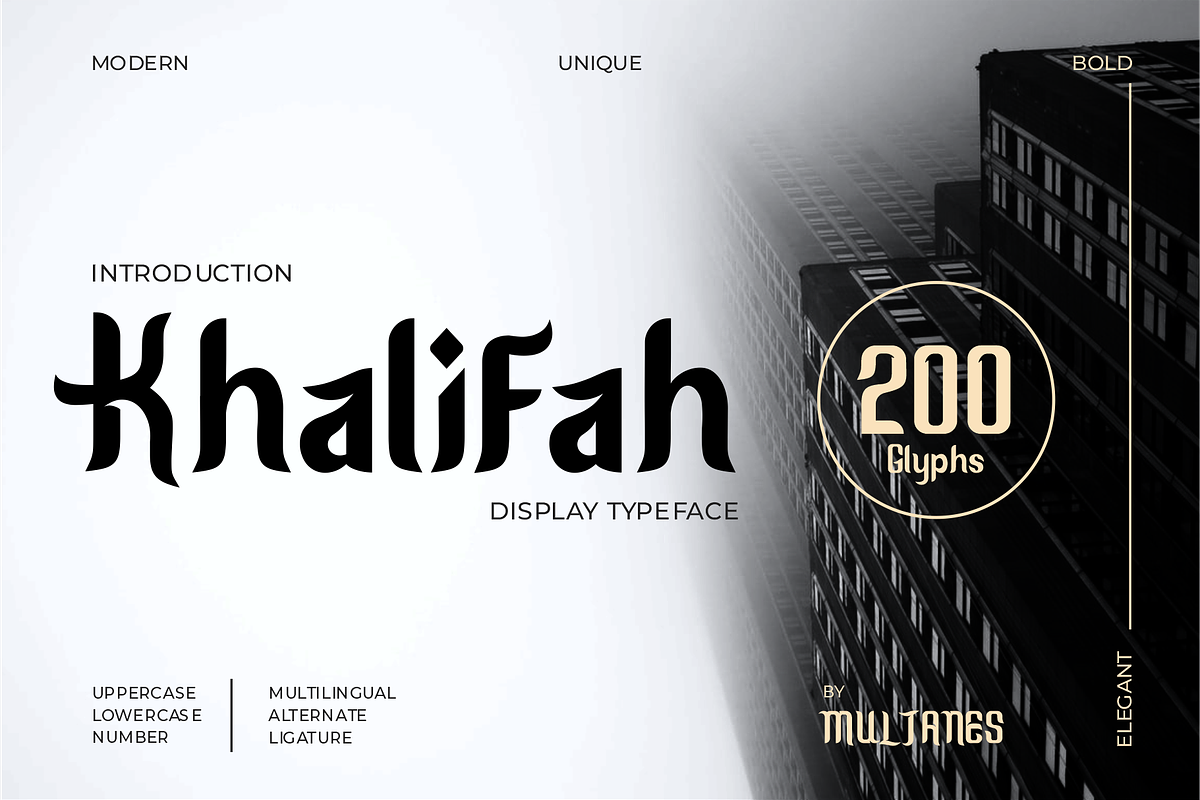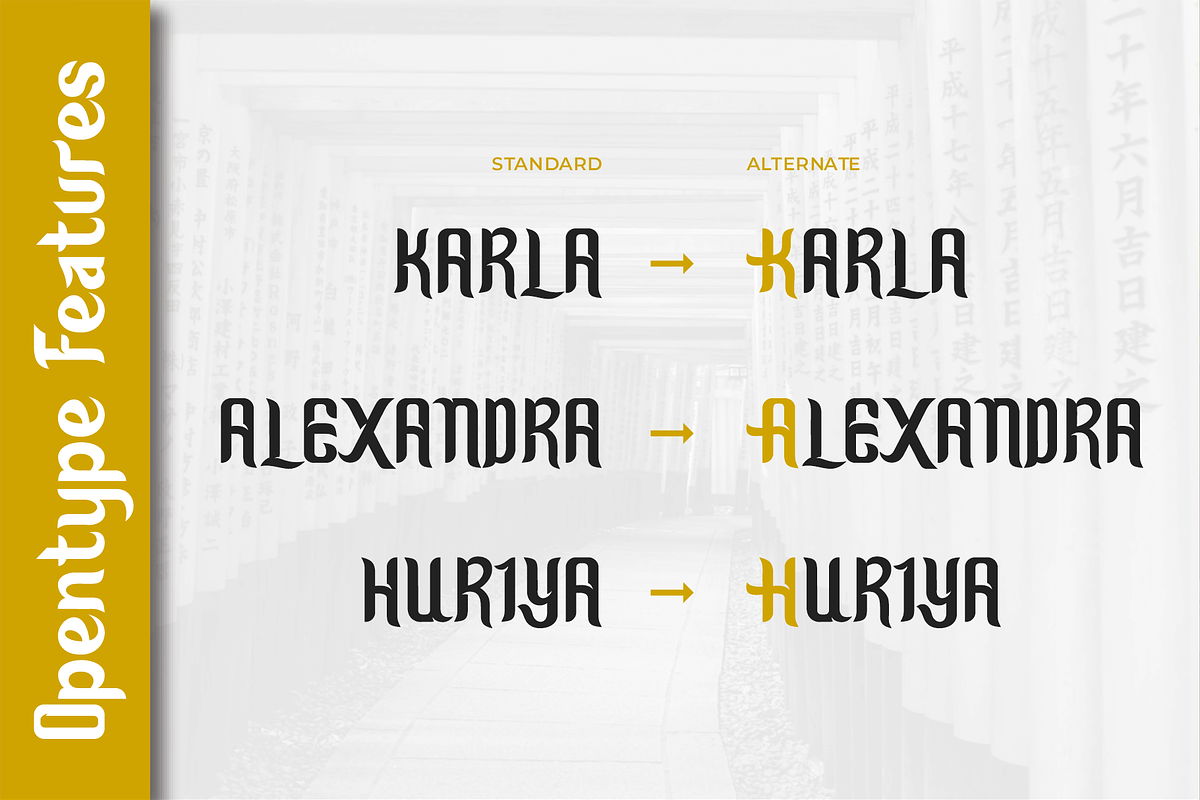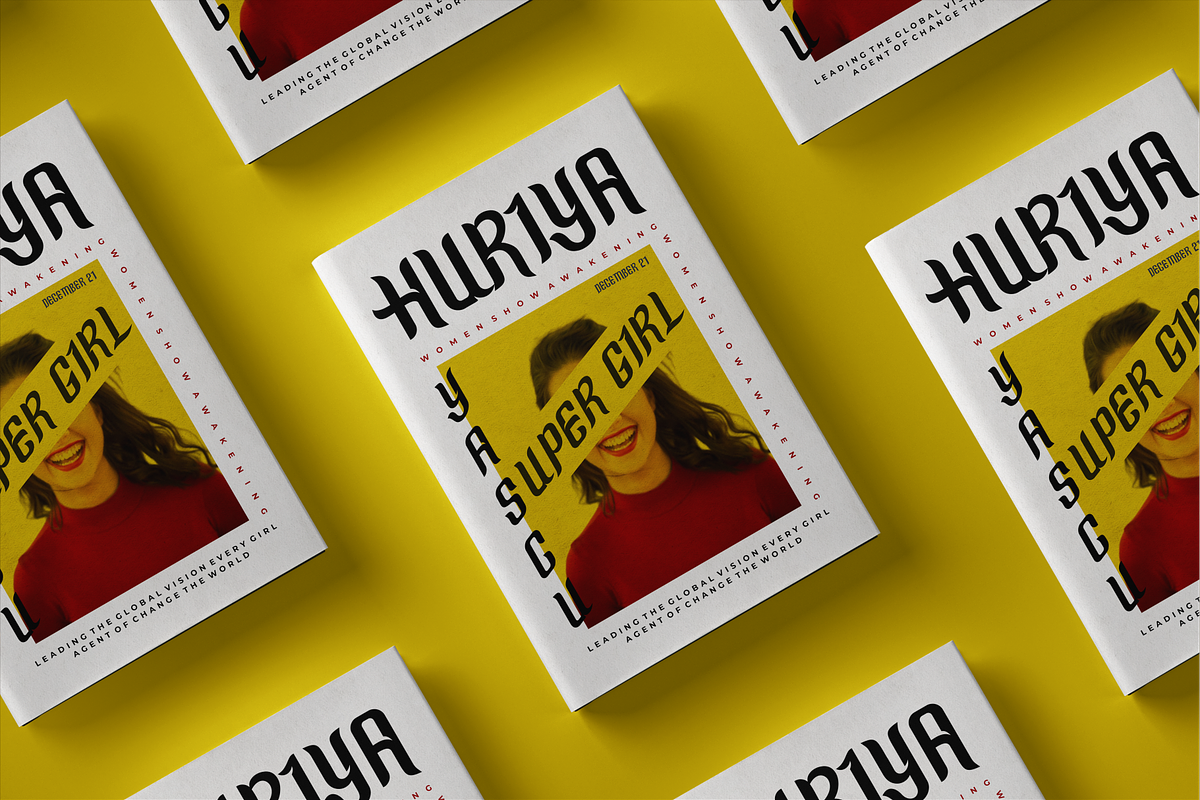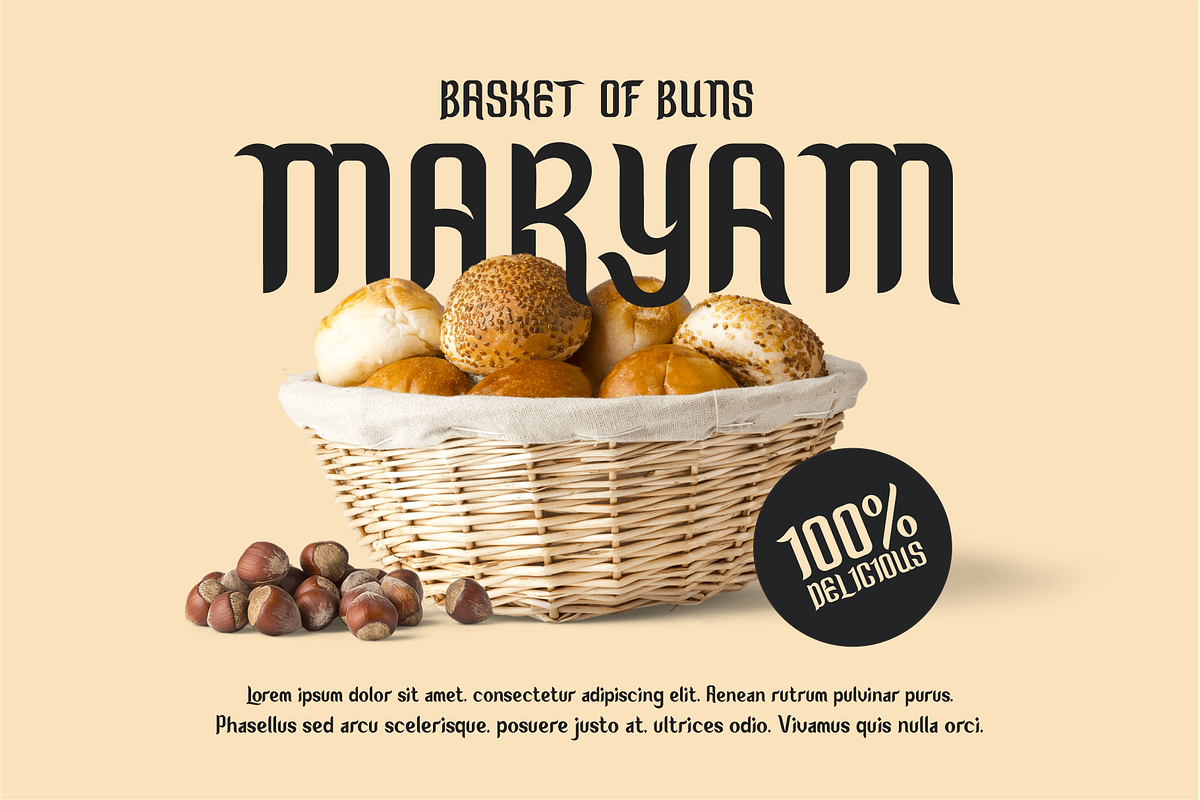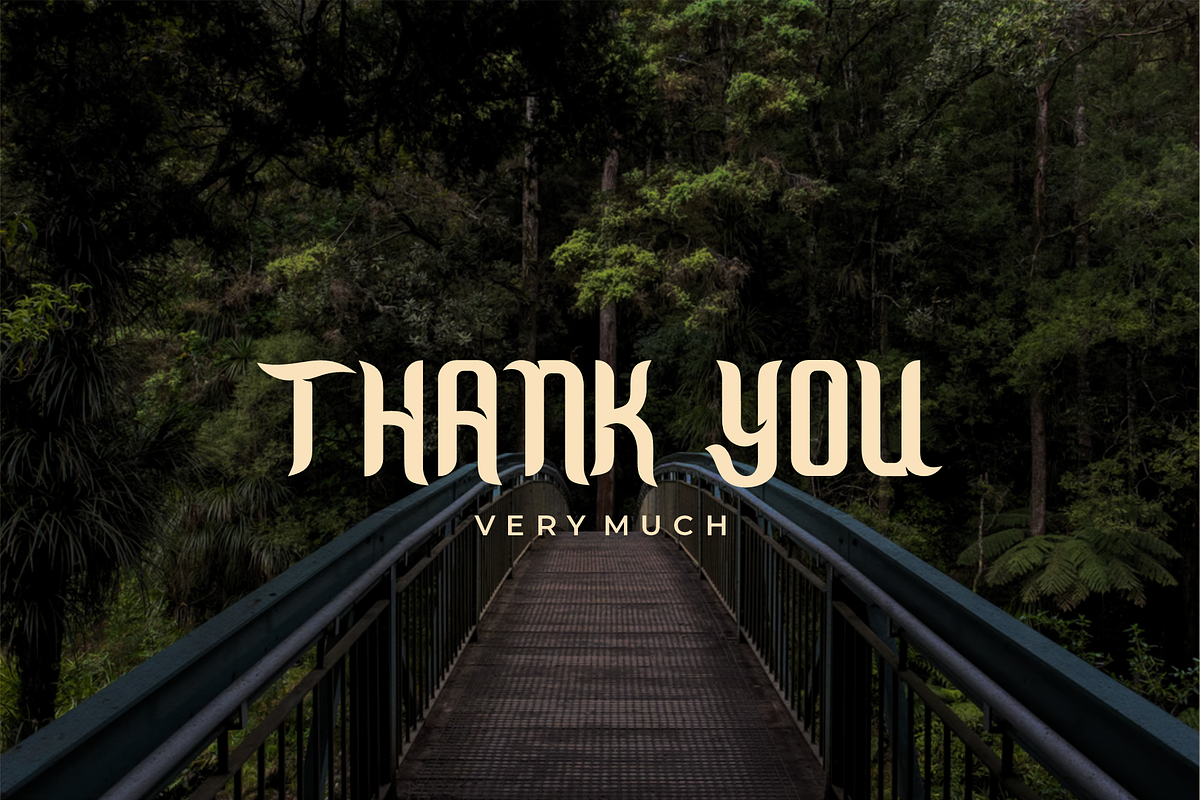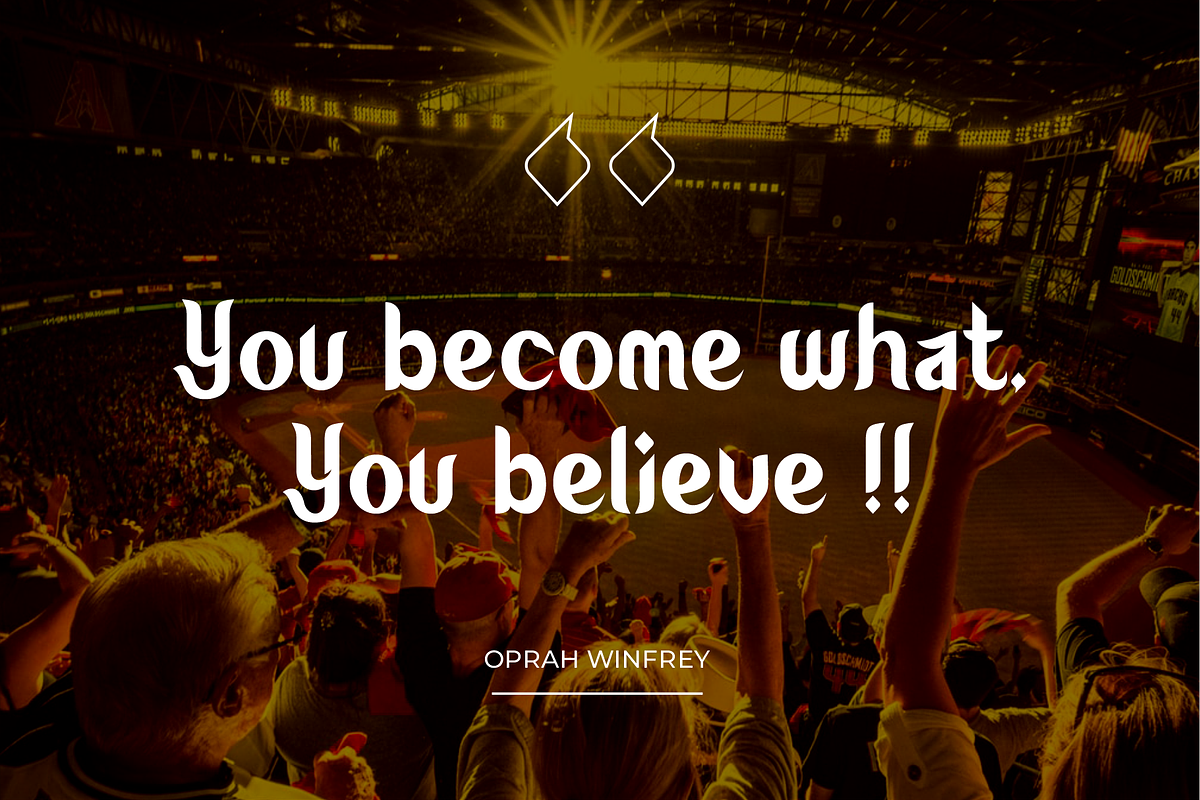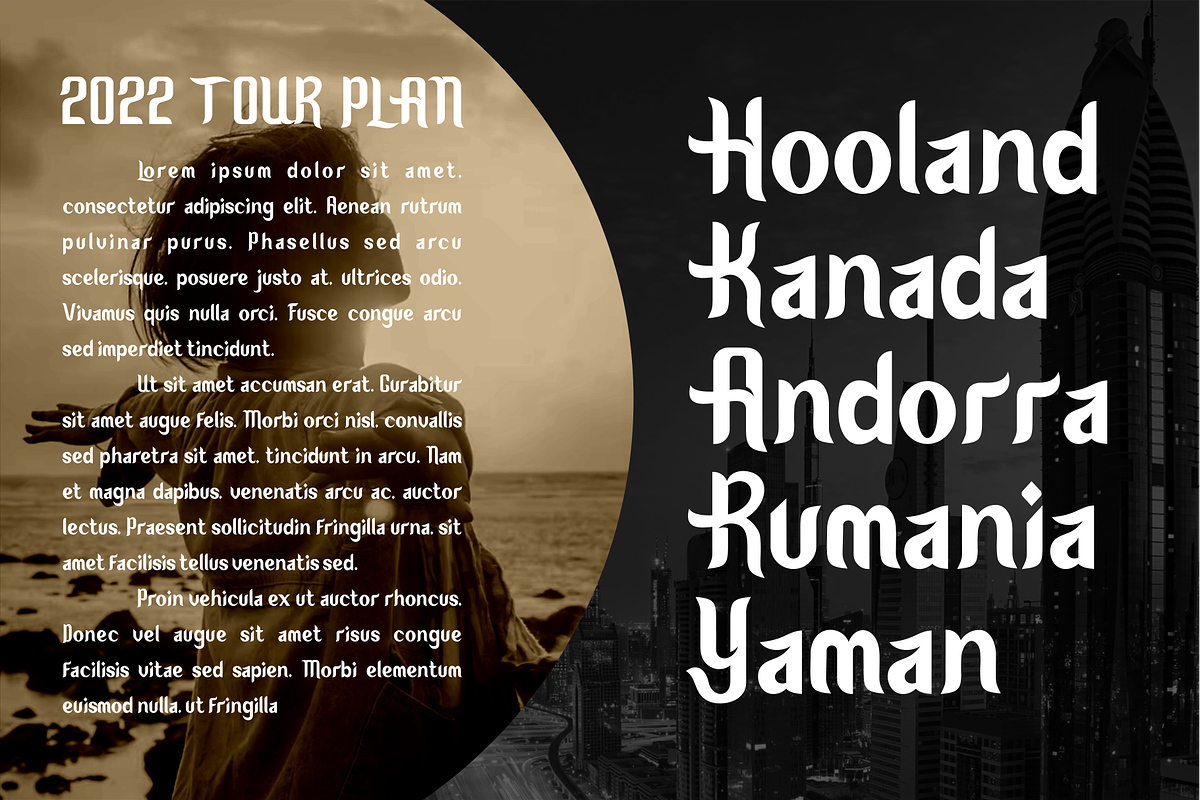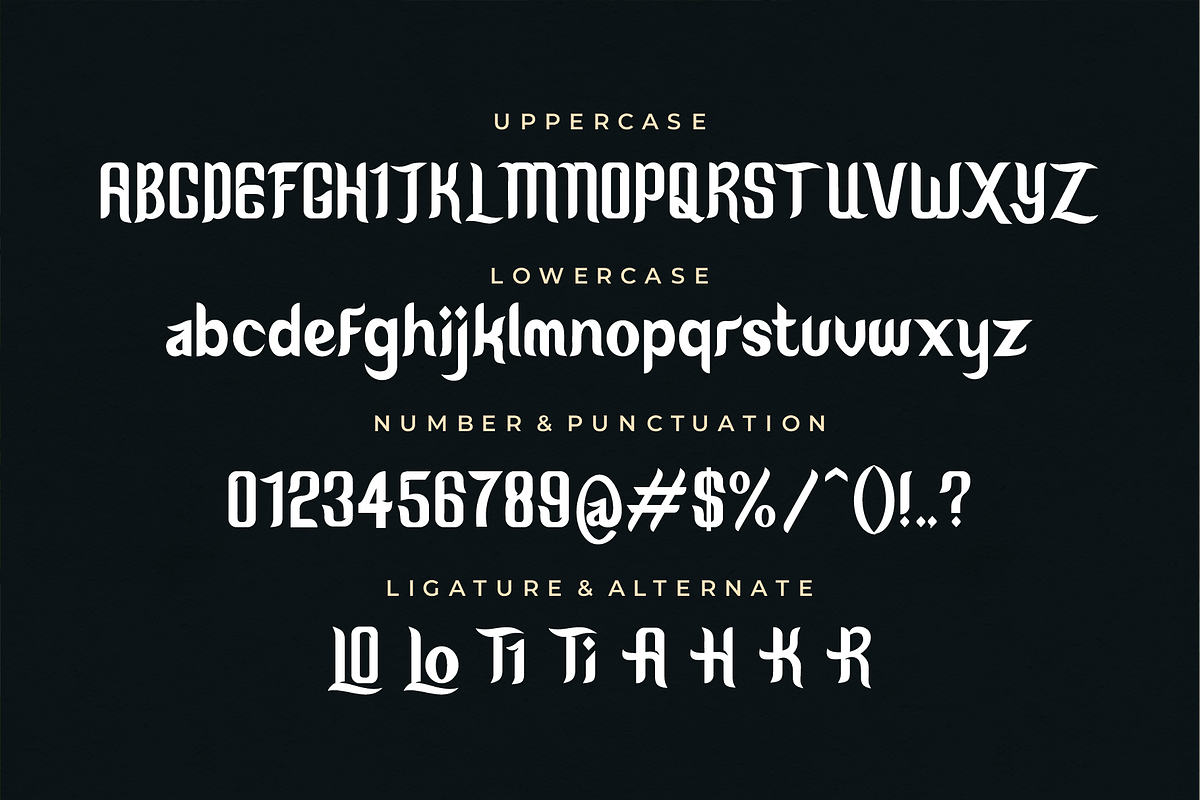
Khalifah Stylish Display
I'm present to you a new stylish font display called Khalifa!
Khalifa is a stylish bold font. This font is inspired by Arabic culture, and combines it with modern times. The uniqueness of this font is that it has the same letter thickness.
Also available in Uppercase, lowercase, punctuation, symbols & numbers, alternative, ligature, also supports multilingual, so you can compose good words with this font.
Perfect for logotypes, quotes, headlines, titles, book covers, labels, branding projects, magazines, banners, packaging, novels, labels and much more